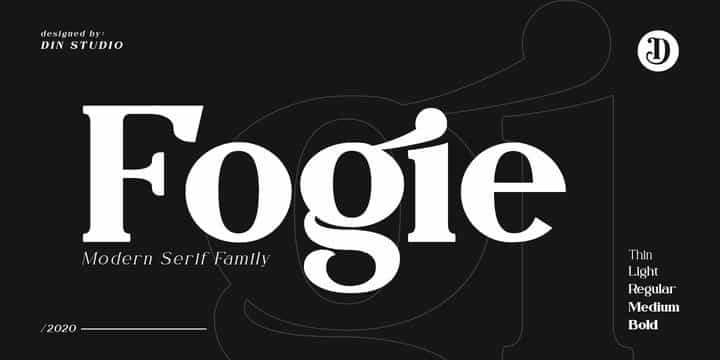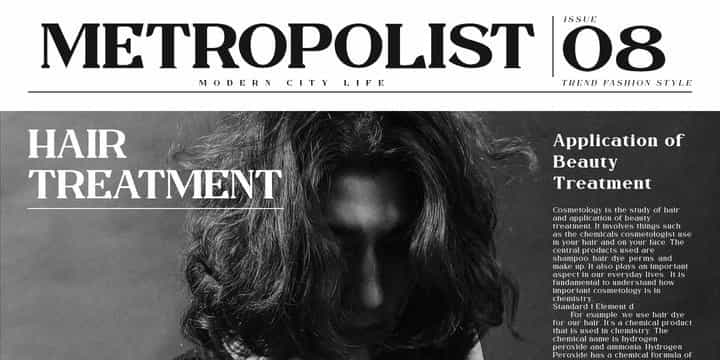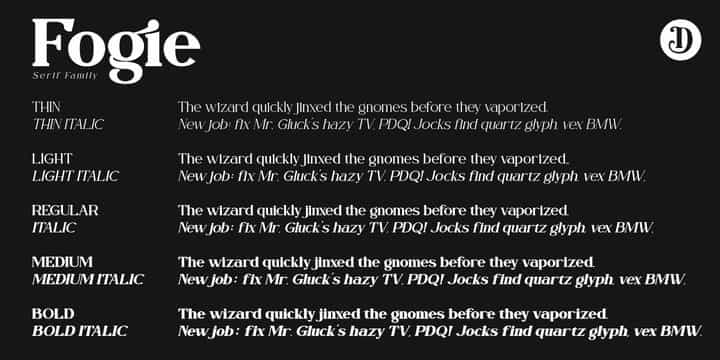
Fogie Font is a high-contrast, serif typeface with monoline stroke endings and angled stems. The weights range from Thin to Black including matching italics. There have an array of uses for these fonts: print, web, branding and advertising, magazines and products packaging labels, etc.